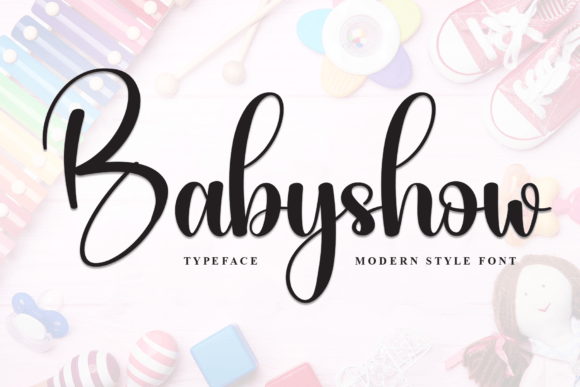
Babyshow Font: The Perfect Addition to Your Design Arsenal
Are you a designer or crafter looking for a font that can add a touch of playfulness and charm to your designs? Look no further than the Babyshow font! This adorable, handwritten font is perfect for a variety of design projects, from baby shower invitations to children’s party decorations. In this article, we’ll take a closer look at the Babyshow font, its features, and how you can use it to elevate your designs.
What is Babyshow Font?
Babyshow is a cute, handwritten font with a fun mix of bold and thin lines. It has a playful, friendly style that’s perfect for adding charm to any design. The font’s unique blend of thick and thin strokes gives it a whimsical feel that’s sure to capture the attention of your audience. Whether you’re designing for a baby shower, a children’s party, or just want to add some personality to your project, Babyshow is the perfect choice.
Key Features of Babyshow Font
- Cute and Playful: Babyshow font has a playful, friendly style that’s perfect for designs that require a touch of whimsy.
- Handwritten: The font has a handwritten feel that’s perfect for adding a personal touch to your designs.
- Mix of Bold and Thin Lines: The font’s unique blend of thick and thin strokes gives it a distinctive look that’s sure to stand out.
- Versatile: Babyshow font can be used for a variety of design projects, from baby shower invitations to children’s party decorations.
How to Use Babyshow Font in Your Designs
Babyshow font is easy to use and can be incorporated into a variety of design projects. Here are a few ideas to get you started:
- Baby Shower Invitations: Use Babyshow font to create adorable baby shower invitations that set the tone for a fun and playful celebration.
- Children’s Party Decorations: Add a touch of whimsy to your children’s party decorations with Babyshow font. Use it to create fun and colorful banners, signs, and other decorations.
- Social Media Graphics: Use Babyshow font to create engaging social media graphics that are sure to capture the attention of your audience.
- Blog Posts: Add a touch of personality to your blog posts with Babyshow font. Use it to create fun and engaging headings and titles.
Tips for Getting the Most Out of Babyshow Font
Here are a few tips for getting the most out of Babyshow font:
- Use it with Other Fonts: Babyshow font pairs well with other fonts, so don’t be afraid to experiment with different combinations.
- Experiment with Colors: Babyshow font looks great in a variety of colors, so try experimenting with different hues to find the one that works best for your design.
- Use it in Combination with Images: Babyshow font looks great in combination with images, so try using it to add a touch of personality to your designs.
In conclusion, Babyshow font is a versatile and playful font that’s perfect for adding charm to any design. Its unique blend of bold and thin lines gives it a whimsical feel that’s sure to capture the attention of your audience. Whether you’re a designer or crafter, Babyshow font is a great addition to your design arsenal. So why not give it a try and see how it can elevate your designs?